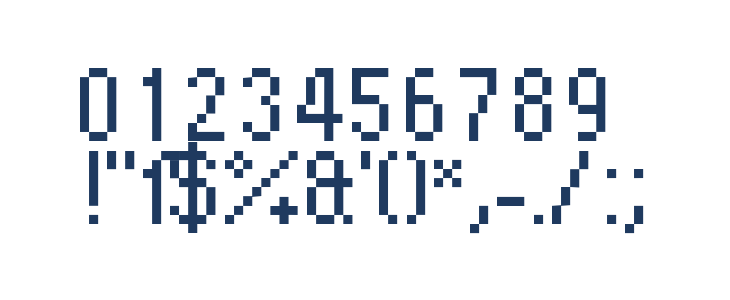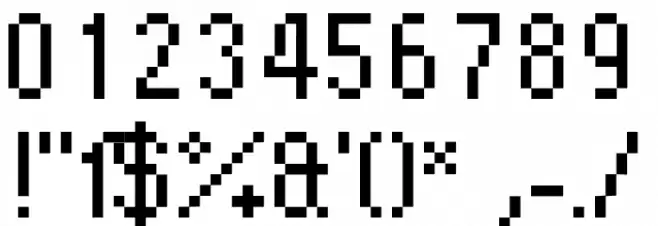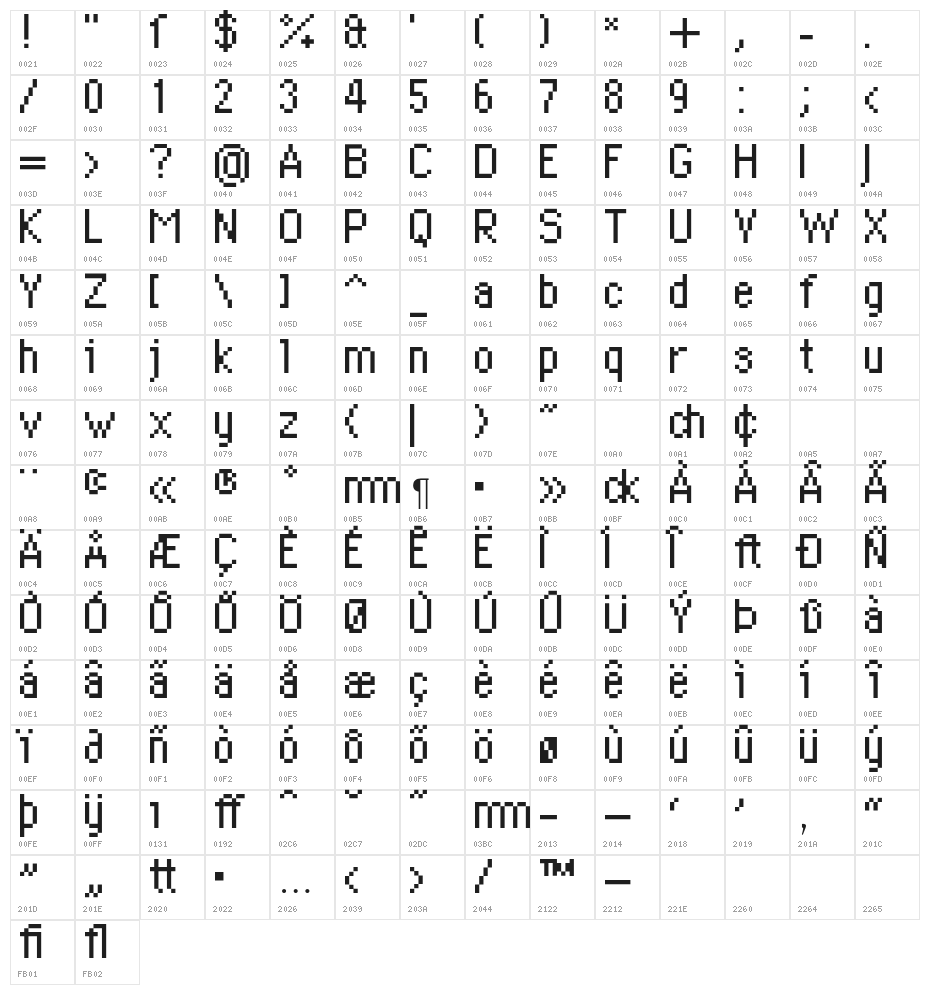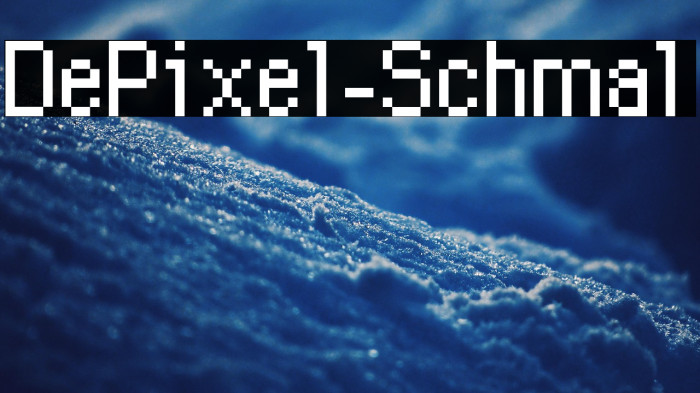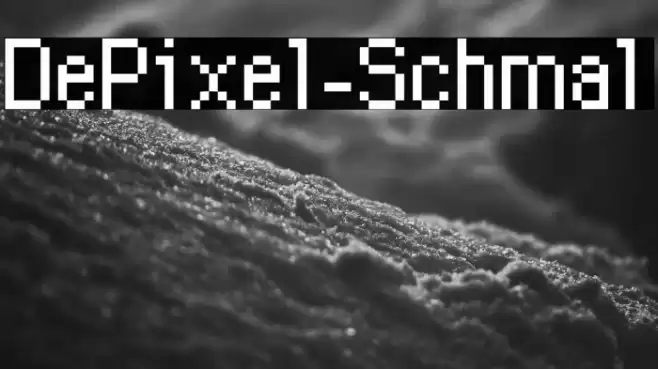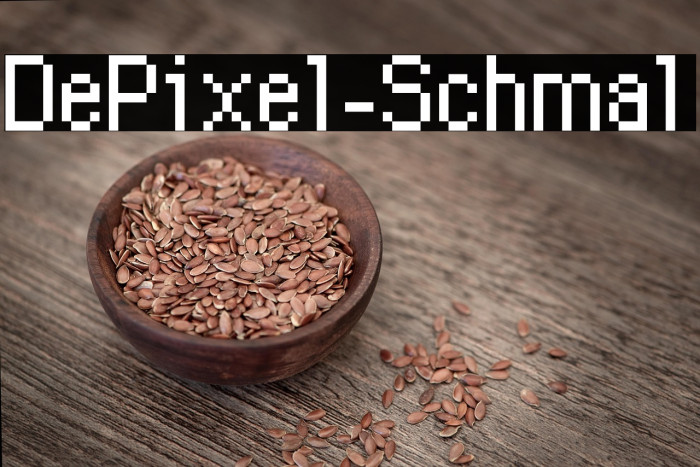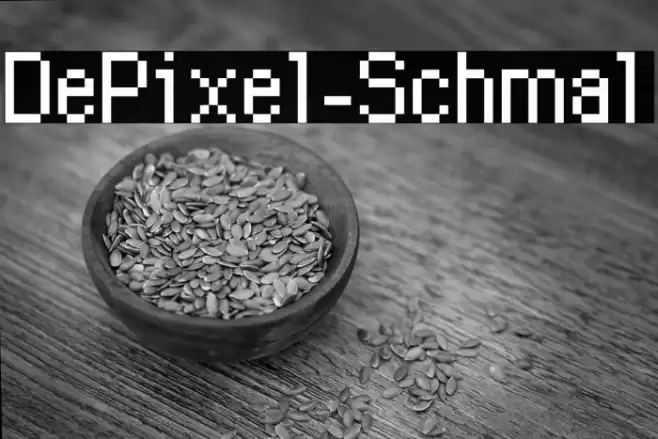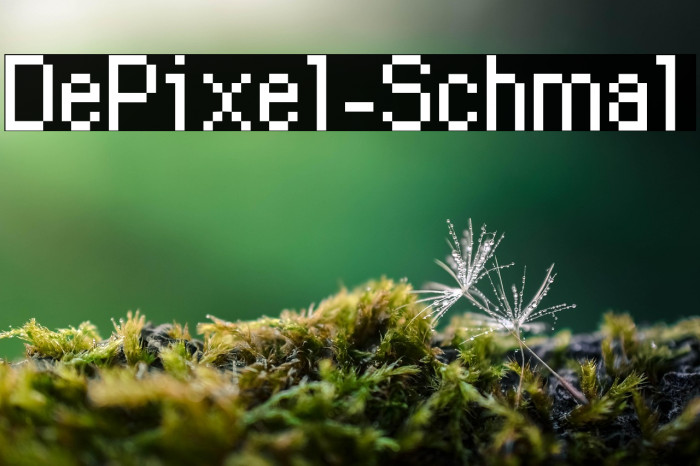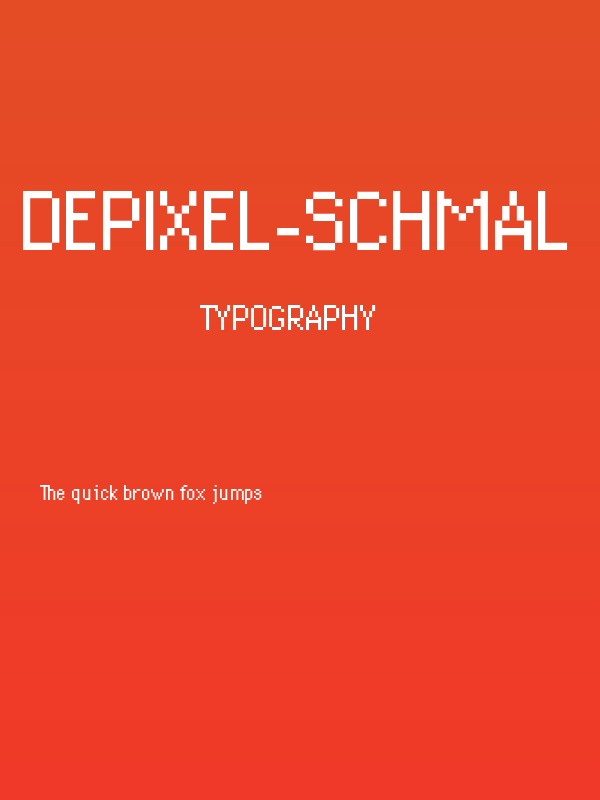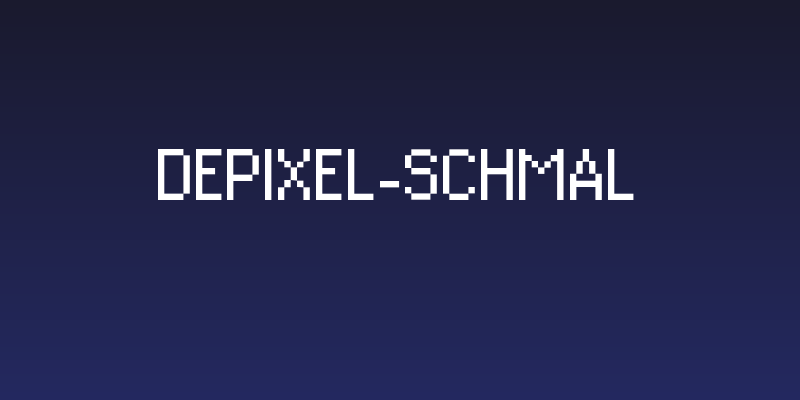
DePixel-Schmal Font
DePixel-Schmal Description
This font features a pixelated, grid-like design reminiscent of early digital displays and retro video games. Each character is constructed with a uniform pixel structure, creating a blocky and geometric appearance. The uppercase and lowercase letters maintain a consistent height, with minimal differentiation between them, enhancing the font's uniformity. Numbers and special characters follow the same pixelated style, ensuring a cohesive look across all glyphs. The simplicity and clarity of the design make it highly legible, even at smaller sizes. This font evokes a sense of nostalgia and is ideal for projects that aim to capture the essence of vintage digital aesthetics.
| Use Case | Logos, Headlines, Digital displays |
| Proposed Projects | Ideal for retro video games, digital art projects, tech-themed designs, and nostalgic branding. |